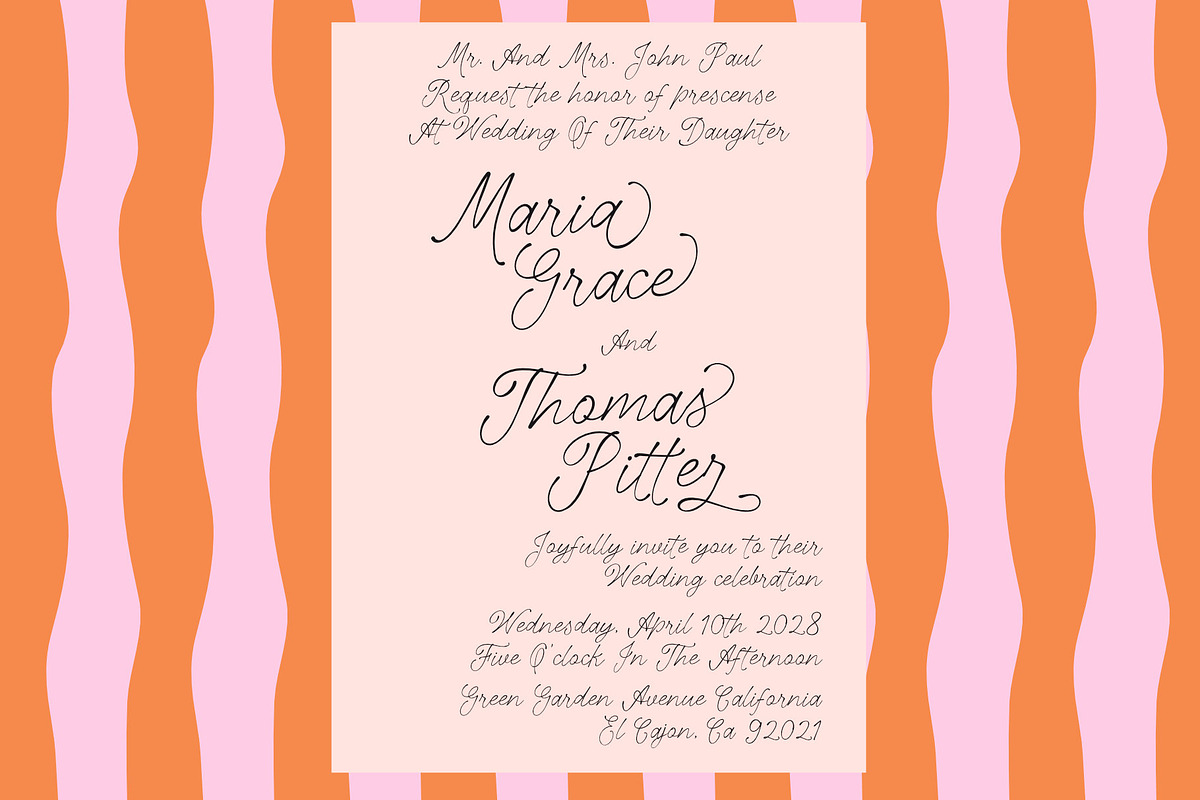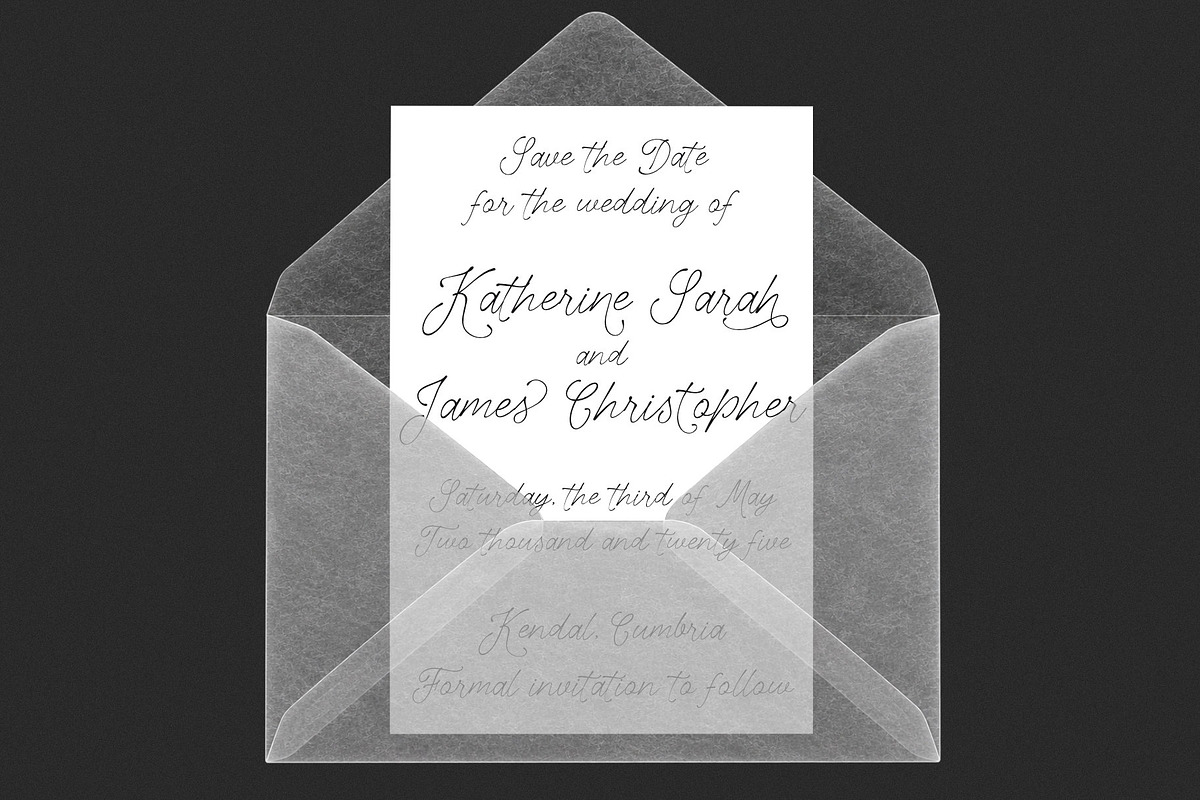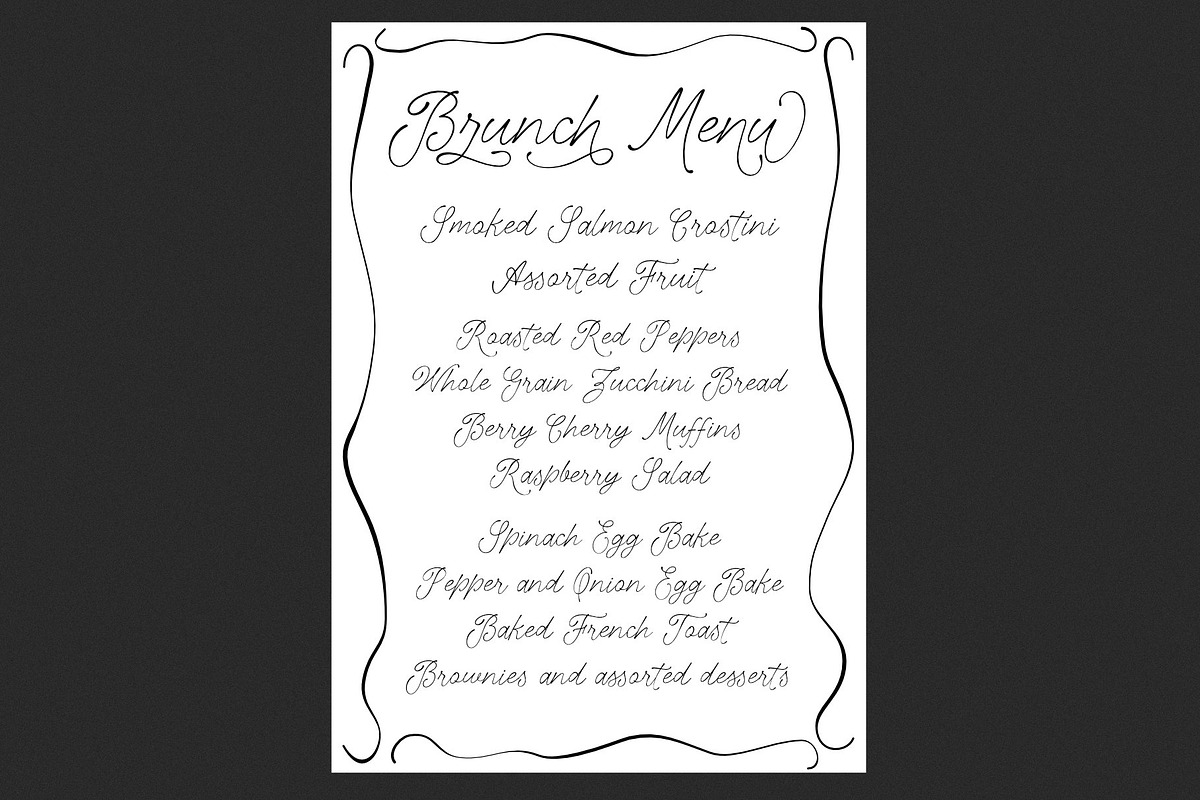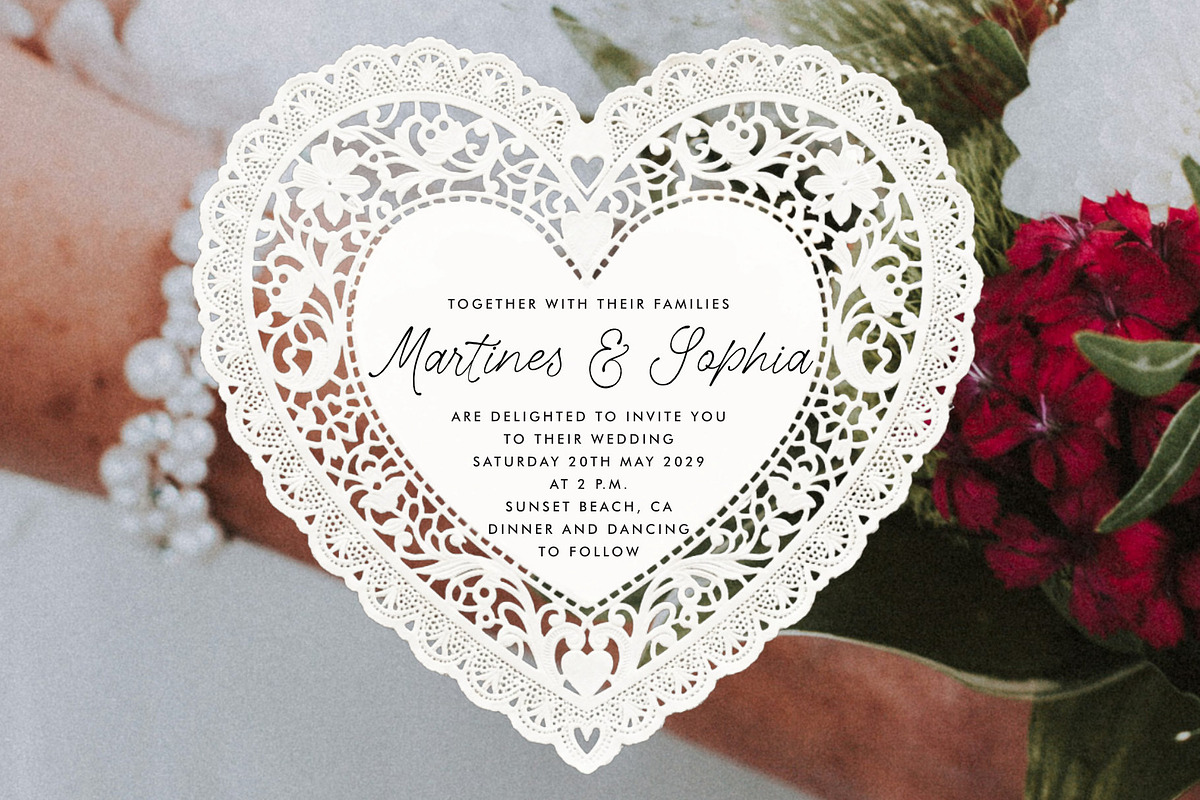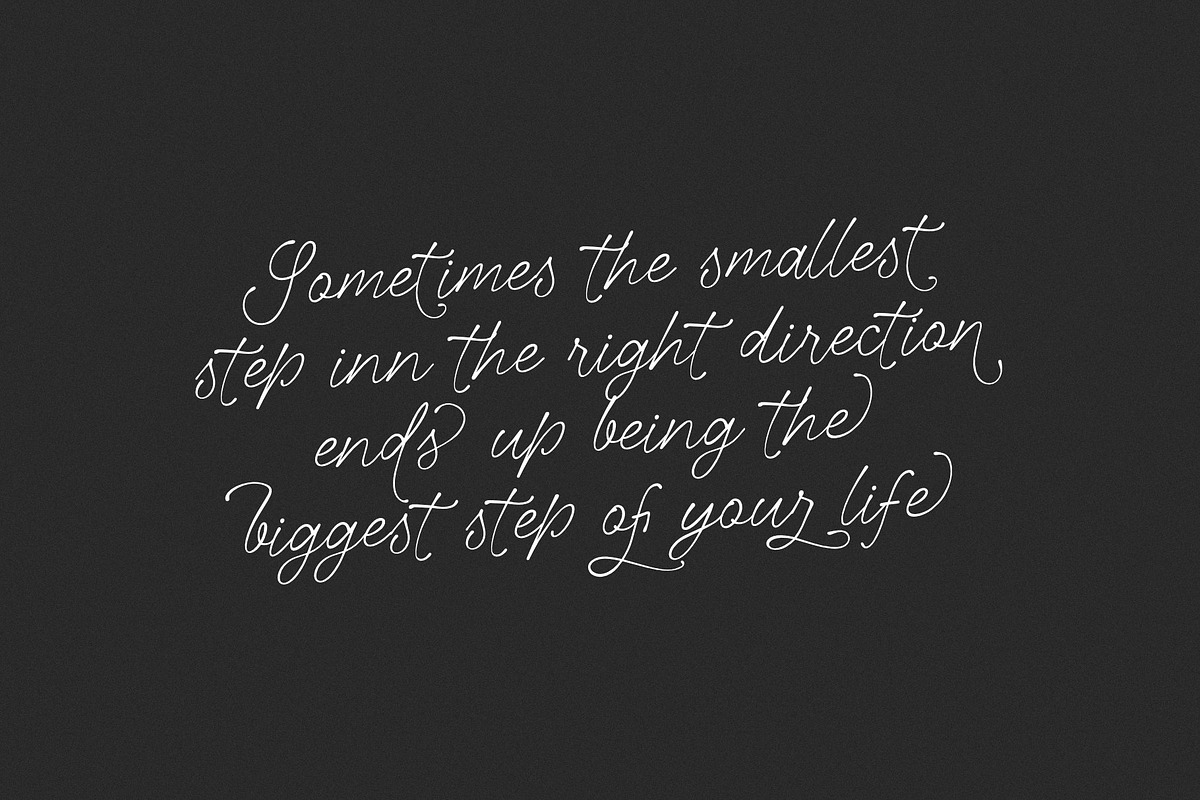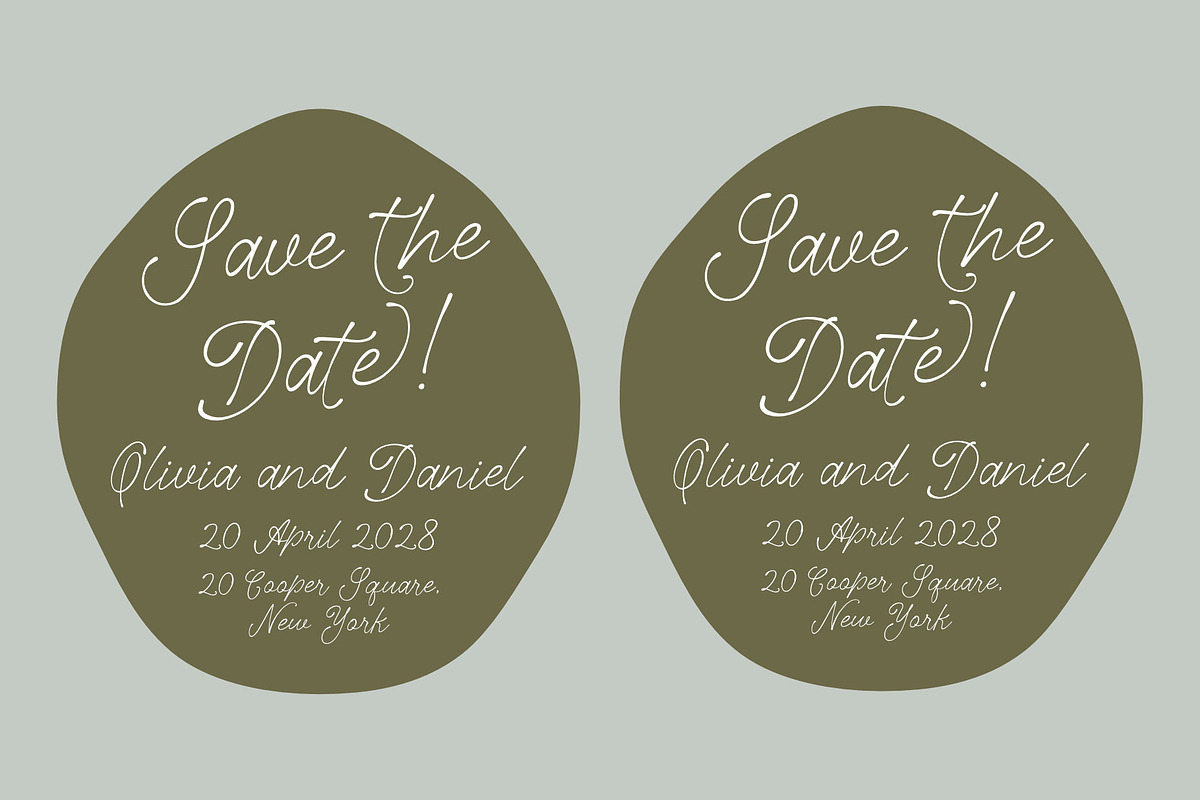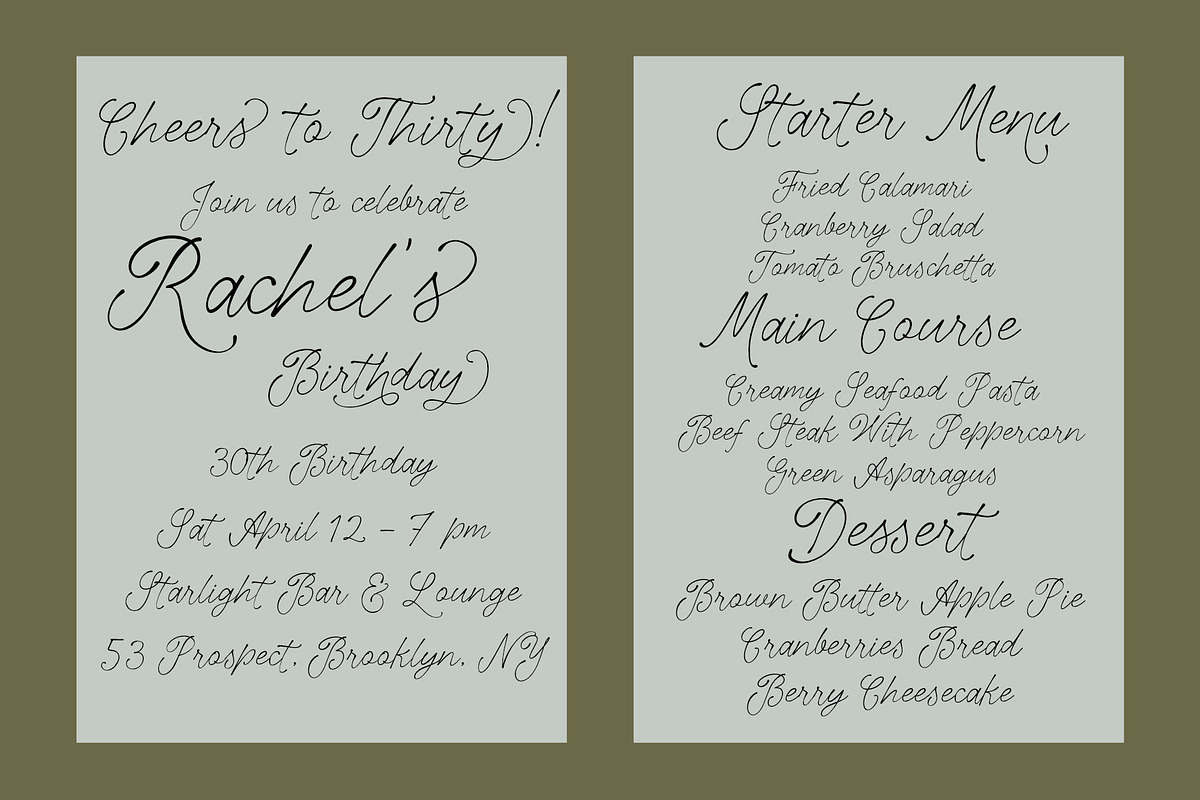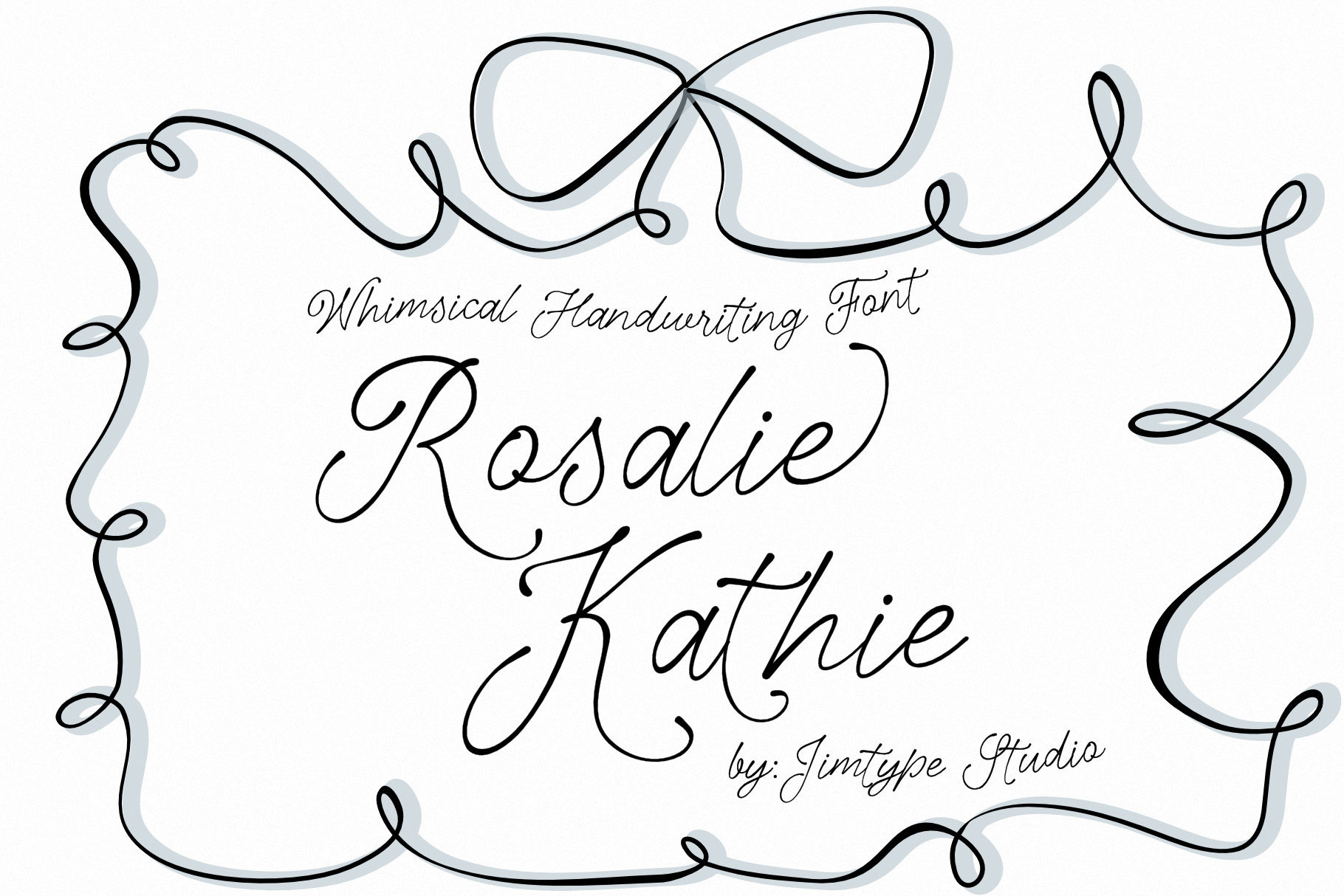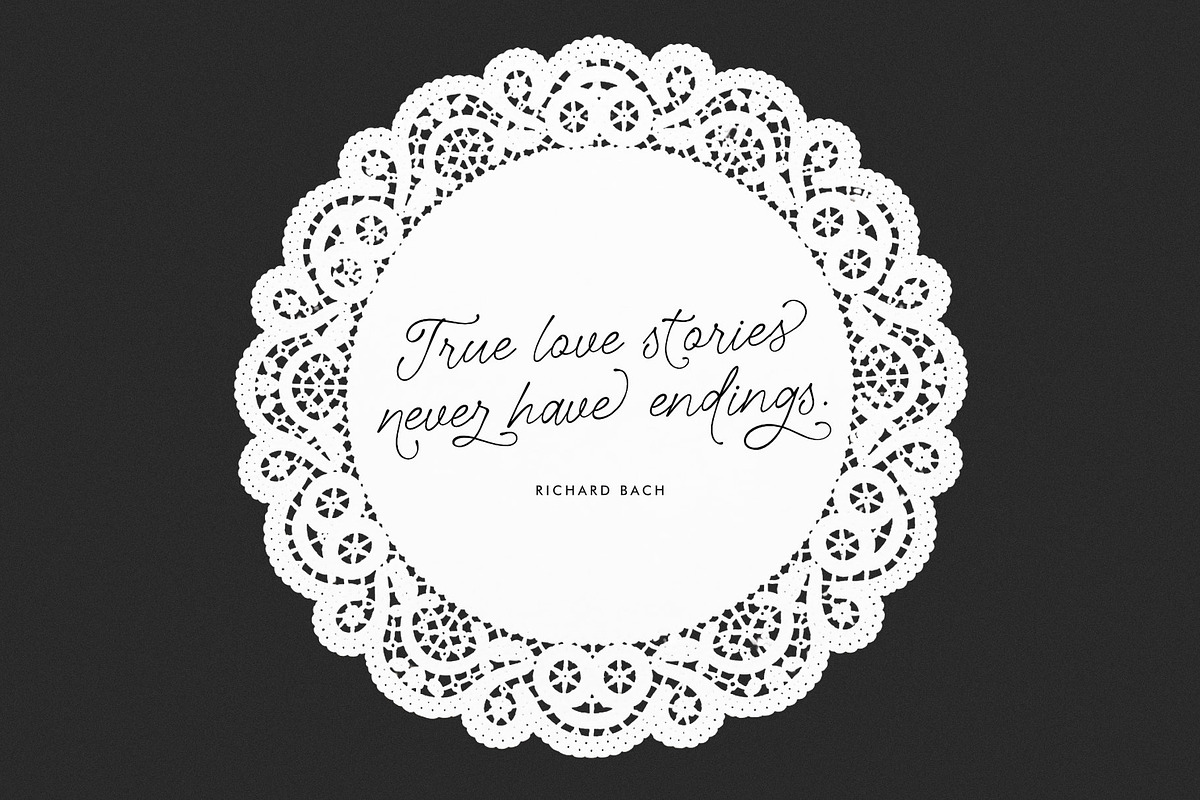
Rosalie Kathie - Whimsical Font
Say hello to The Rosalie Kathie Font — a whimsical hand-lettering script font!
Lovingly crafted with a romantic touch, this script font combines handcrafted elegance with excellent readability. Its natural curves and subtly imperfect strokes create an authentic handwritten feel that adds warmth and personality to designs. Use this font when you desire handmade typography and romance.
The Rosalie Kathie Font is perfect for wedding invitations, branding projects, greeting cards, product packaging, social media graphics, and stylish display typography. Whether you're creating something elegant, feminine, or romantic, this font brings a soft handmade charm to every composition.
For a beautifully balanced look, pair it with a clean sans serif or a refined serif font to create crisp contrast and sophisticated typography.